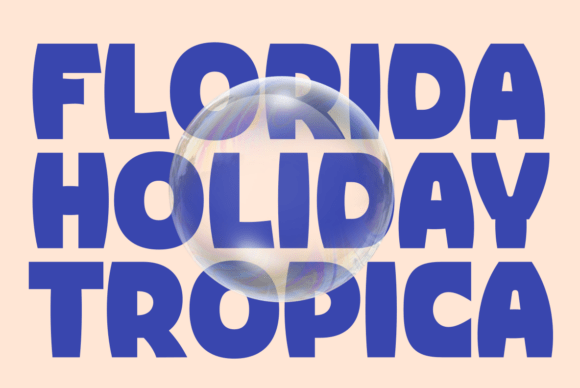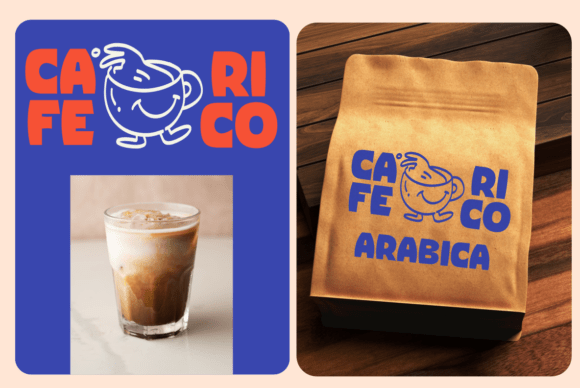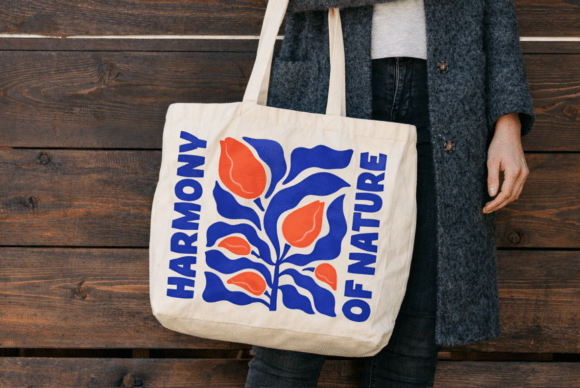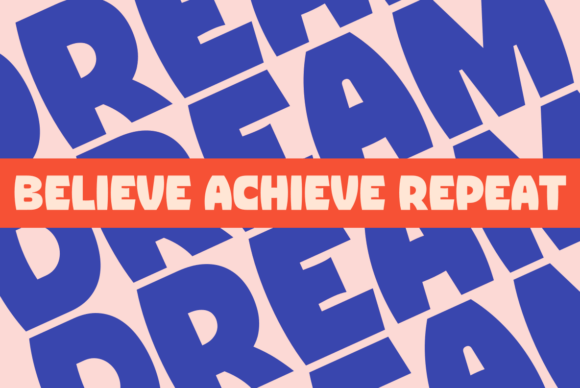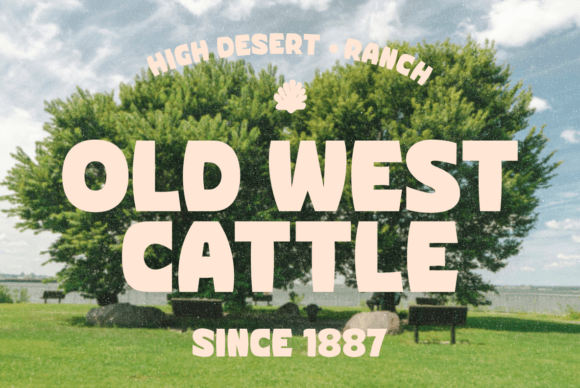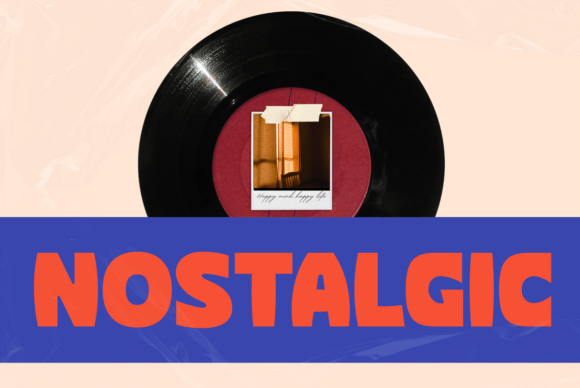
Introducing Corva Bold Inside Font: The Ultimate Display Font for Modern Design
In the world of typography, a good font can make all the difference in creating a lasting impression. For designers and crafters looking for a bold and energetic font to elevate their projects, Corva Bold Inside is an excellent choice. This display font features strong shapes and smooth curves that create a playful yet confident look, perfect for capturing attention and making a statement.
What is Corva Bold Inside Font?
Corva Bold Inside is a bold display font designed to add a touch of personality to your typography. Its chunky letterforms give your text a bold and energetic personality, making it perfect for headlines, branding, posters, packaging, and modern design projects. The font’s unique blend of strong shapes and smooth curves creates a visually appealing contrast that adds depth and interest to your design.
Key Features of Corva Bold Inside Font
- Bold and Energetic: Corva Bold Inside features chunky letterforms that give your typography a bold and energetic personality.
- Playful yet Confident: The font’s smooth curves and strong shapes create a playful yet confident look that’s perfect for modern design projects.
- Attention-Grabbing: Corva Bold Inside is designed to capture attention, making it perfect for headlines, branding, and posters.
- Versatile: The font works well for a variety of design projects, including packaging, logos, and modern design projects.
Who Can Benefit from Corva Bold Inside Font?
Corva Bold Inside is an excellent choice for designers, crafters, and businesses looking to add a touch of personality to their typography. Whether you’re working on a branding project, creating a poster, or designing a logo, this font is sure to make a lasting impression.
How to Use Corva Bold Inside Font
Tips for Using Corva Bold Inside Font
- Use it for Headlines: Corva Bold Inside is perfect for headlines, where its bold and energetic personality can shine.
- Experiment with Colors: The font works well with a variety of colors, so don’t be afraid to experiment and find the perfect combination for your design.
- Pair it with Other Fonts: Corva Bold Inside pairs well with other fonts, making it easy to create a unique and visually appealing typography.
Corva Bold Inside is a bold display font that’s perfect for designers and crafters looking to add a touch of personality to their typography. Its unique blend of strong shapes and smooth curves creates a playful yet confident look that’s sure to capture attention. Whether you’re working on a branding project, creating a poster, or designing a logo, Corva Bold Inside is an excellent choice.